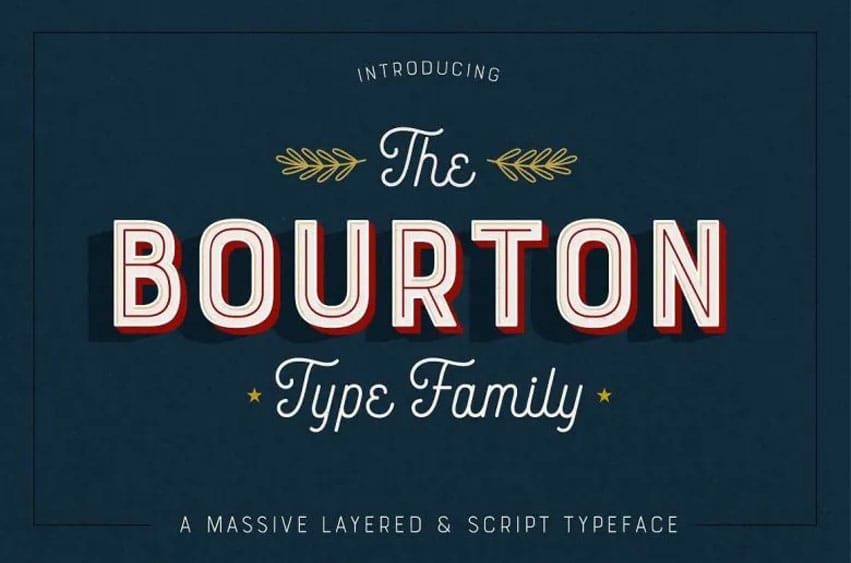
Bourton Font is a completely new font design by Kimmy Design and is the sans serif typeface to complement the serif typeface Buford. With added shading features together with stylistic, graphic and script features – Bourton is uniquely different from other typefaces!
I wanted to show you those examples to give you some inspiration on how to use graphic elements, layers, some layering options and script fonts to create something new and unique.